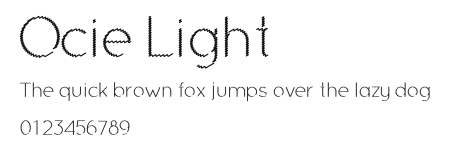
• Font Name: Ocie Light
• Full Font Name: Ocie Light
• Designer: Louis Dorman
About Ocie Light.otf
Ocie Light.otf is a modern, elegant sans-serif font designed for ultimate readability and visual harmony. Perfect for branding, headlines, web design, and print materials.